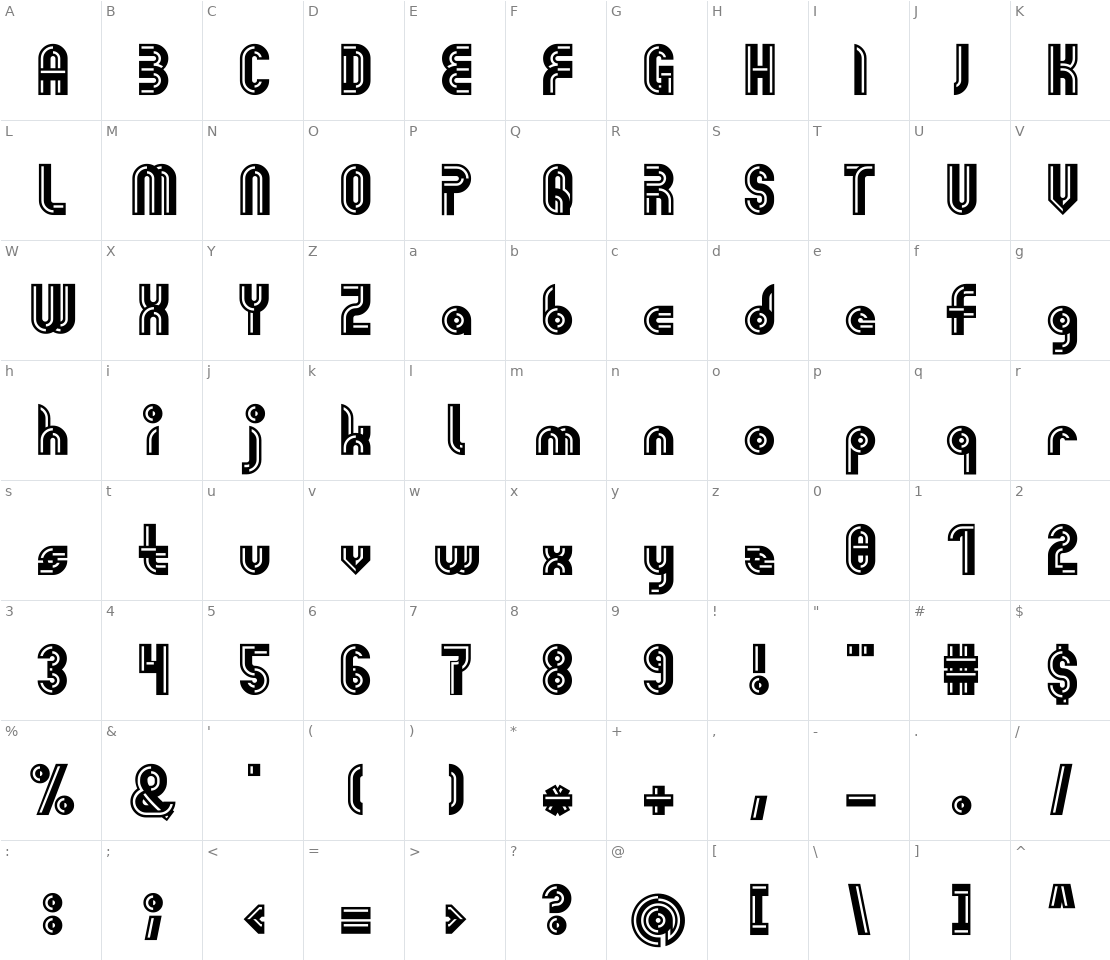
Giovanni
Giovanni is a heavy, geometric display face by Thor Christopher Arisland with inline detailing that cuts through its bold letterforms, adding a layer of visual depth without sacrificing impact. The decorative structure gives it a poster-ready quality, strong and attention-grabbing but with enough character to stand apart from standard bold sans types. Best kept to headlines and large-format work where the inline detail can actually register.